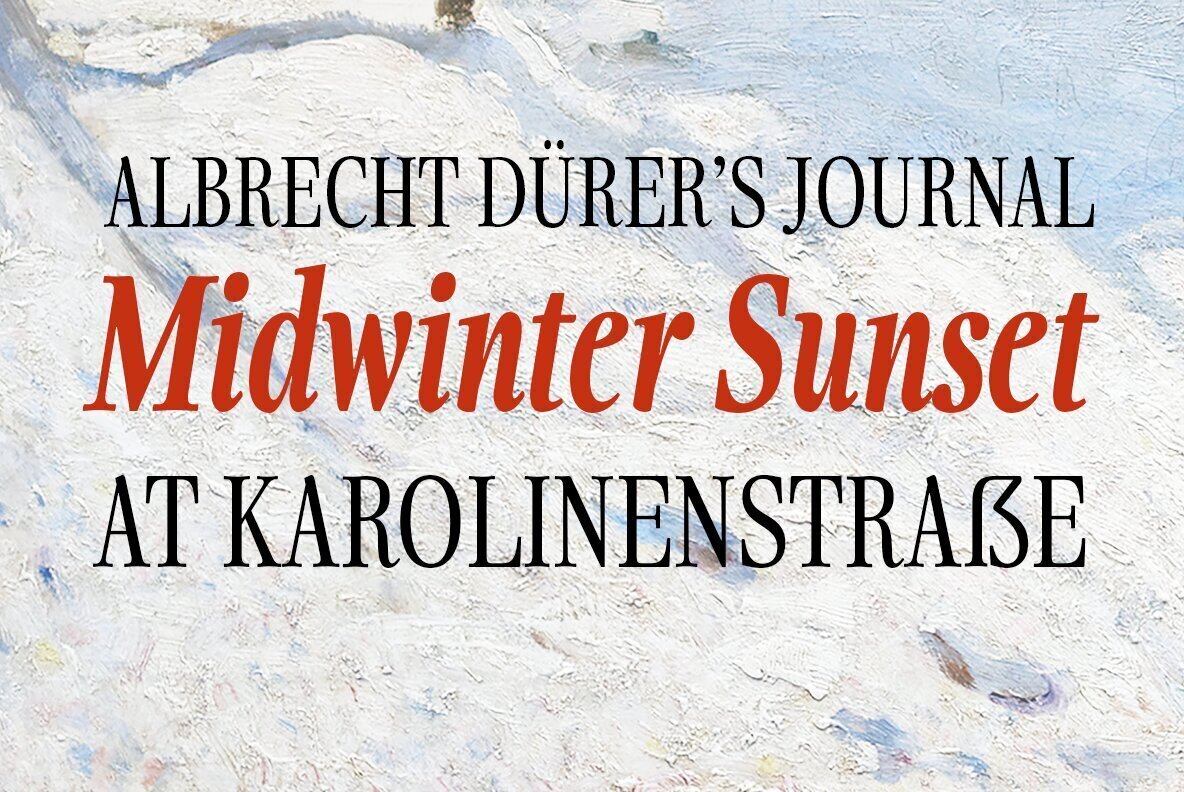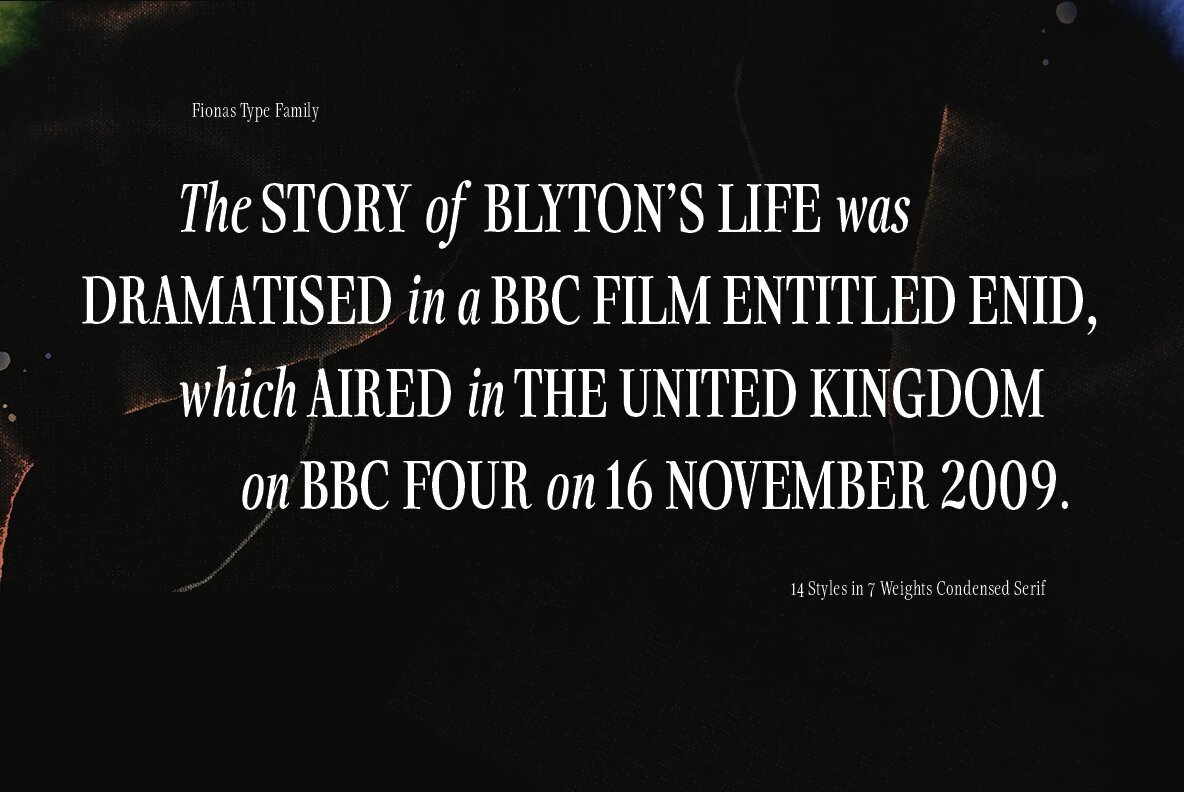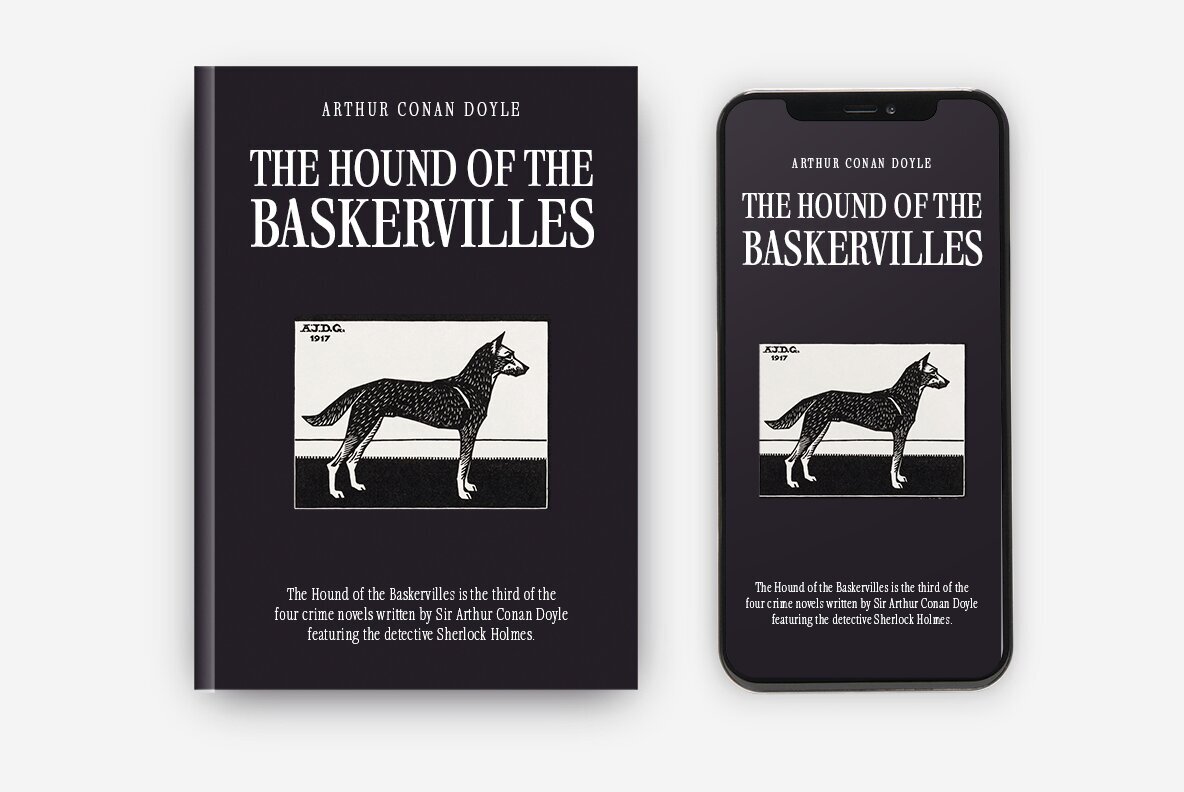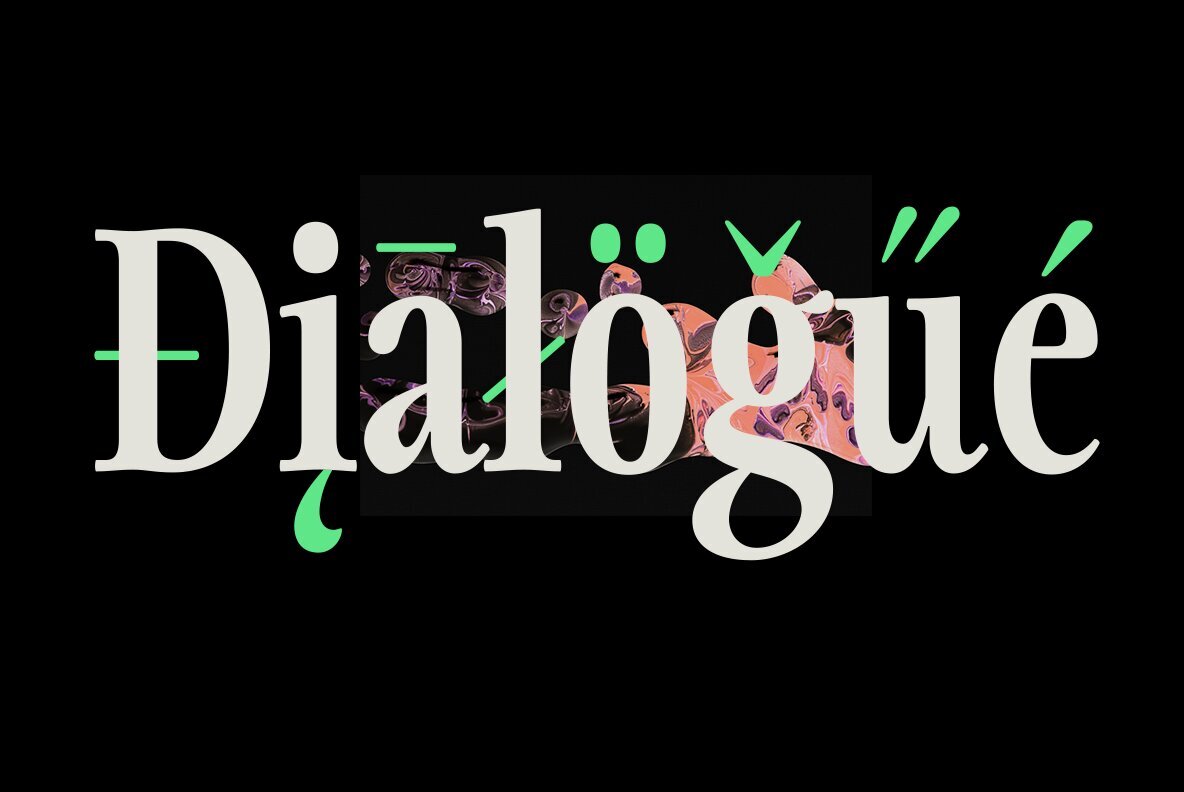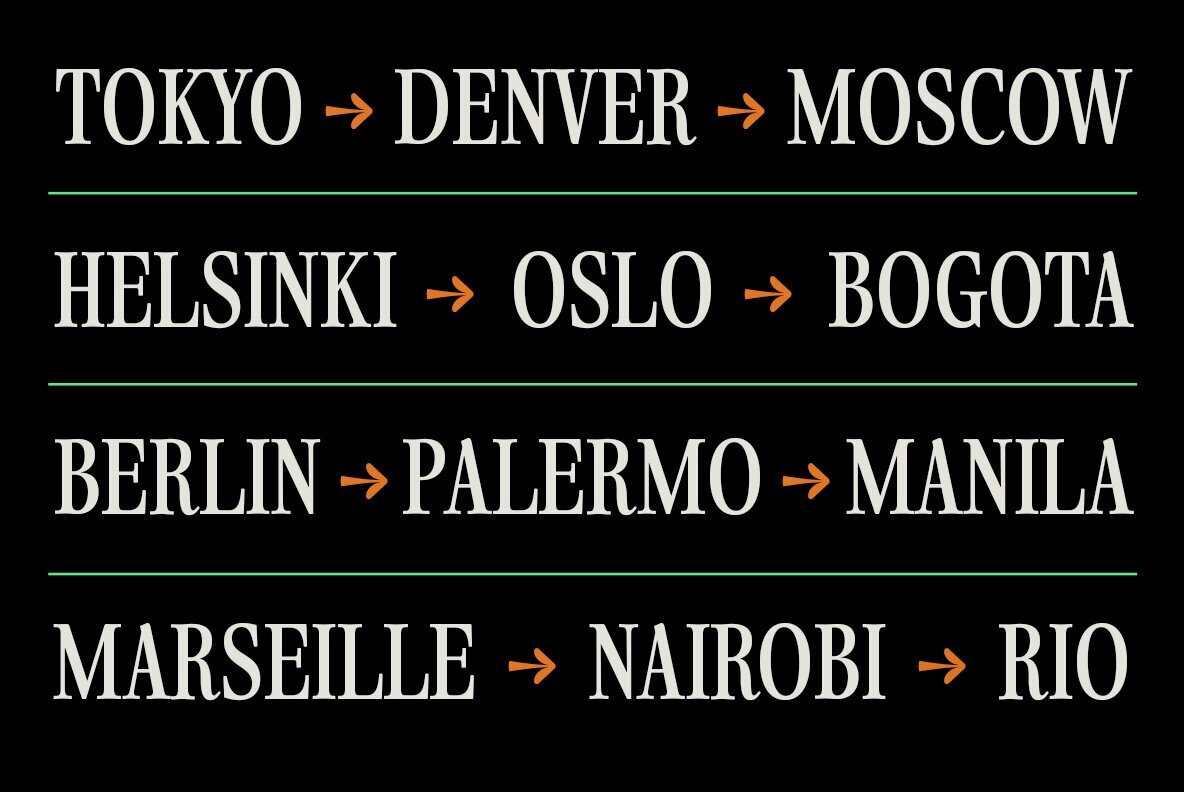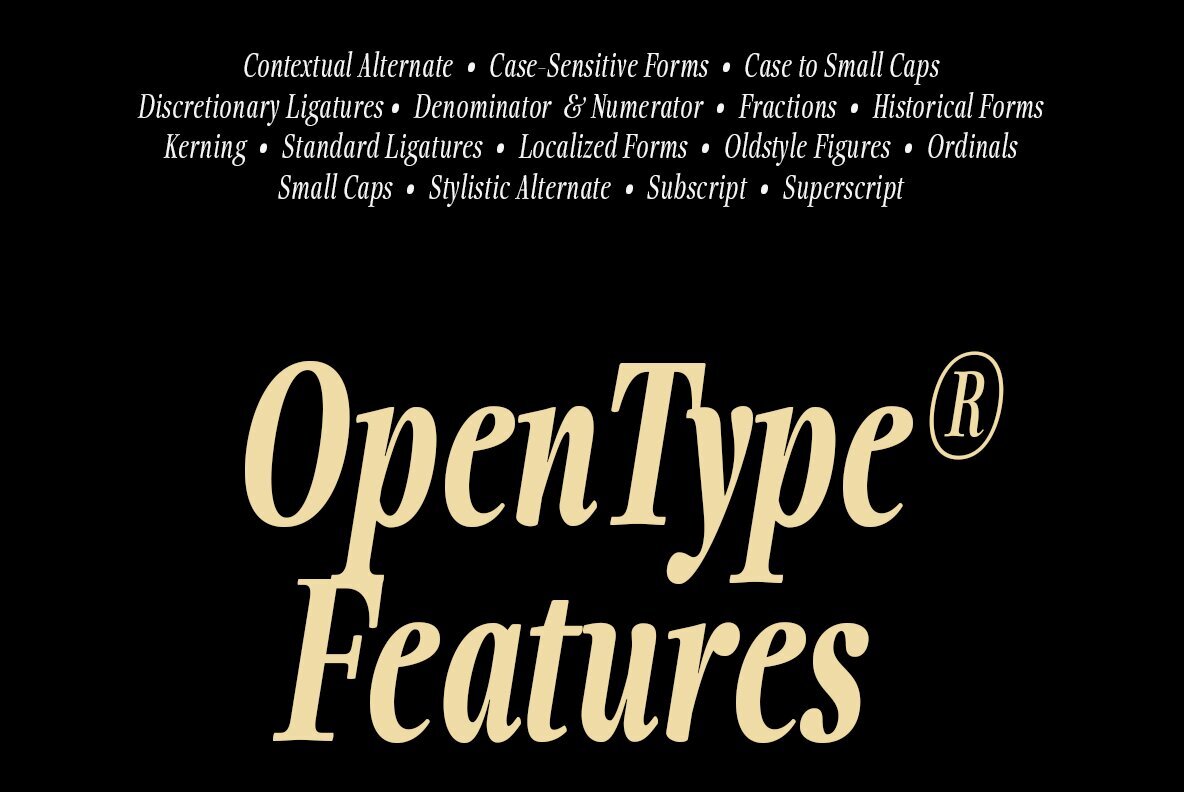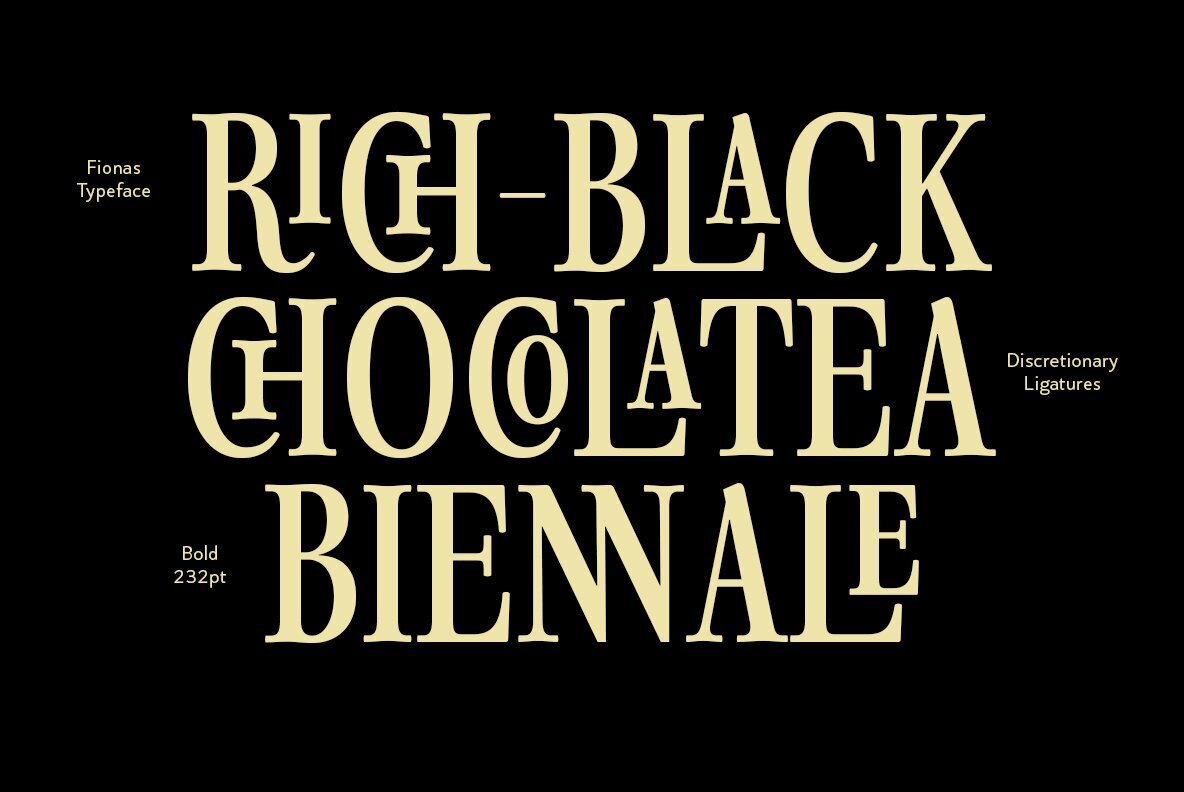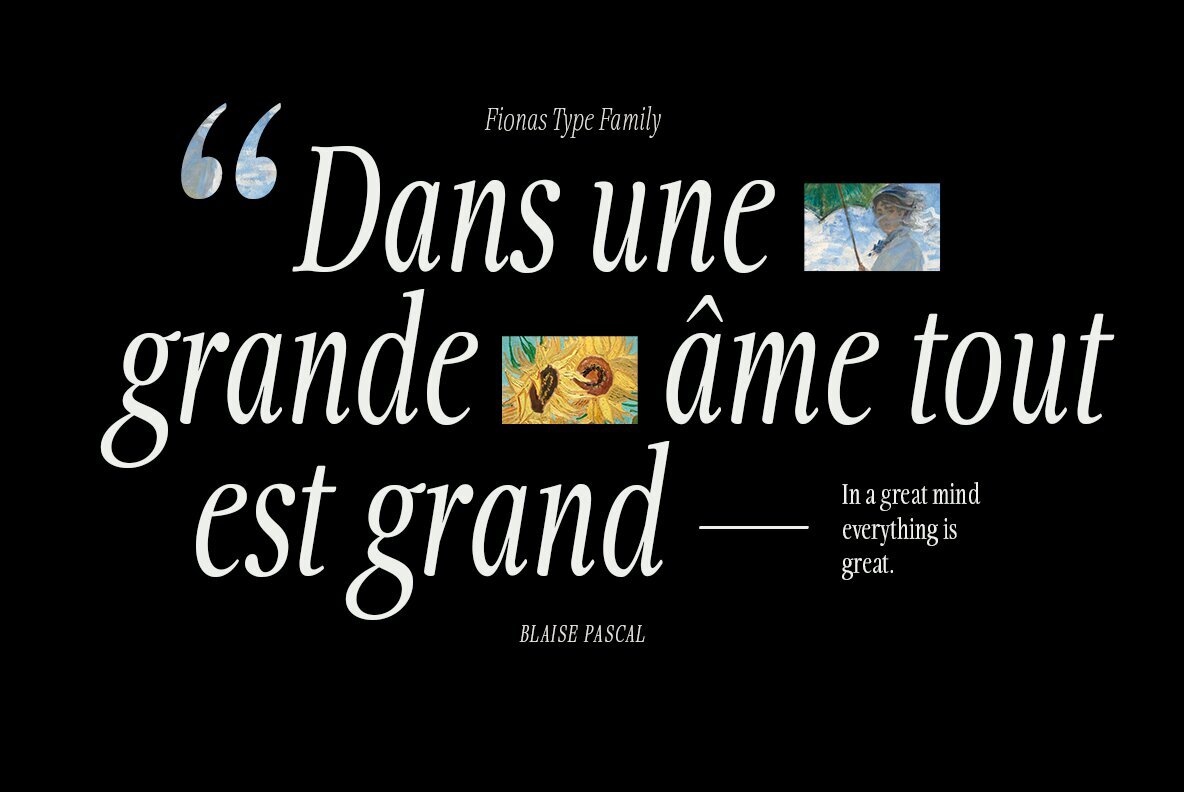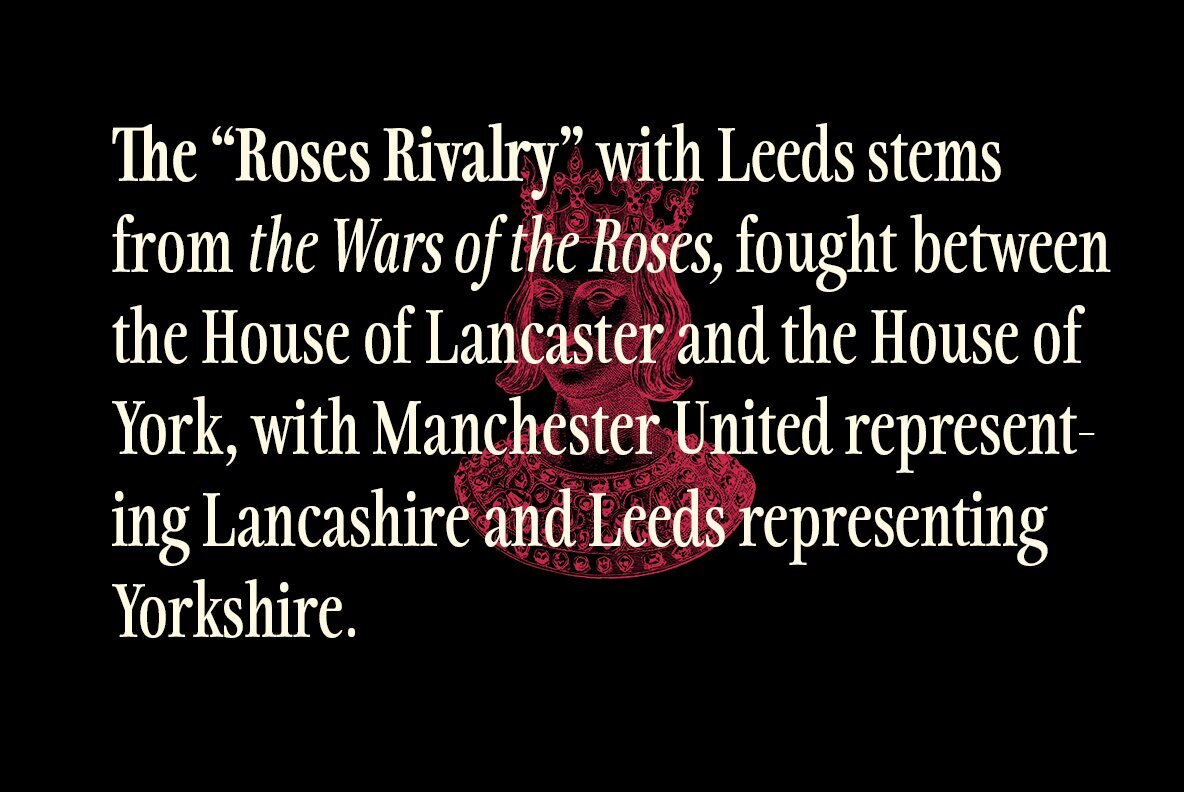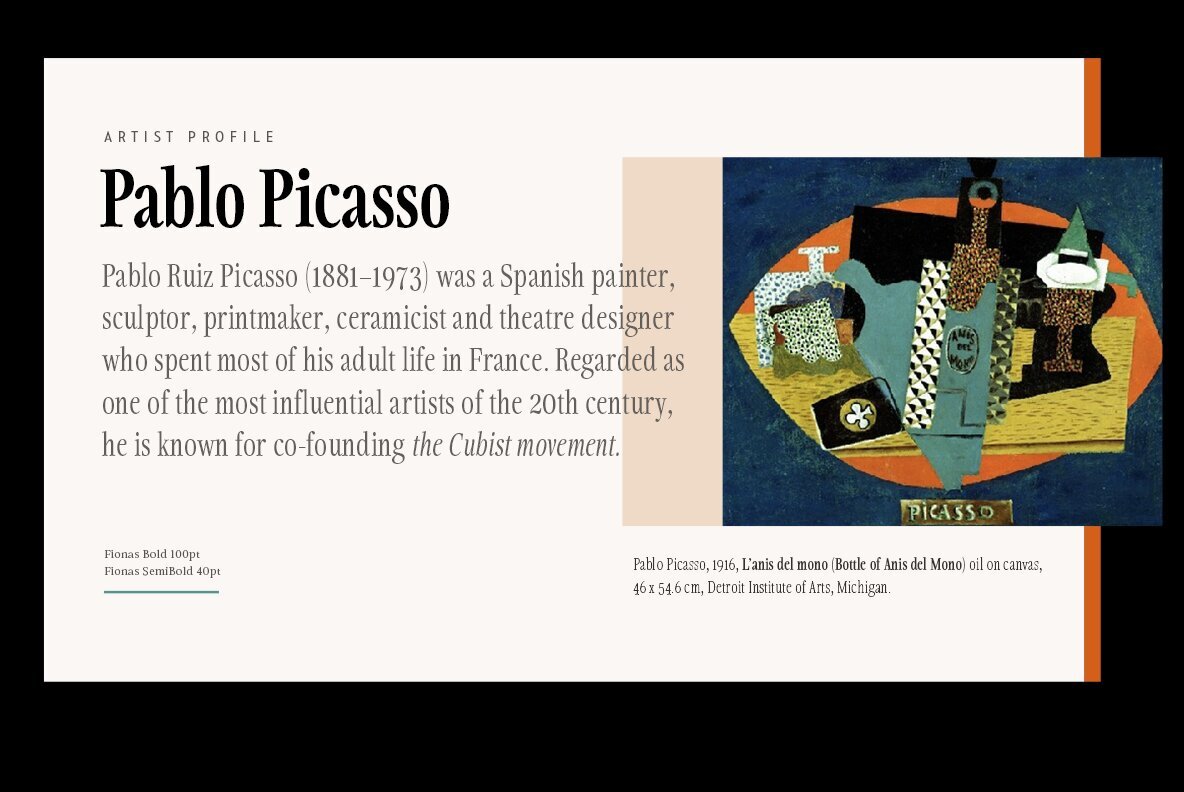
Fionas Font
Fionas is a condensed serif typeface inspired by retro 80’s-magazines’ typography, mixed with modern appeal to blend with modern needs.
Ranging from light to heavy with italics, Fionas offers many possibilities to be applied in many graphic or editorial projects. The lighter weights are suitable for short paragraph, and the heavier weights are perfect for headlines, perfectly suitable for display purpose such as book covers, web headlines, branding, editorial, etc.
Fionas has extended latin character set that supports 200+ latin-based languages.